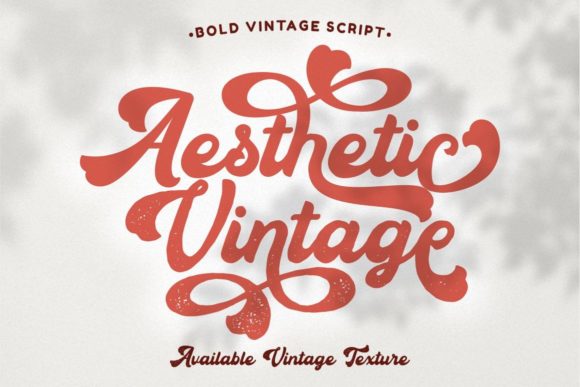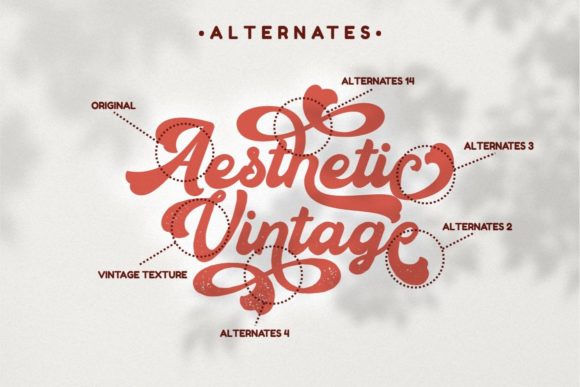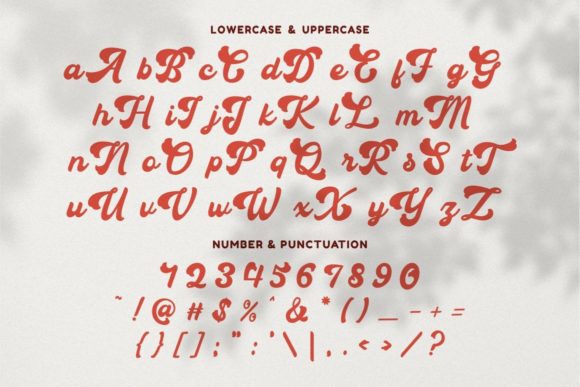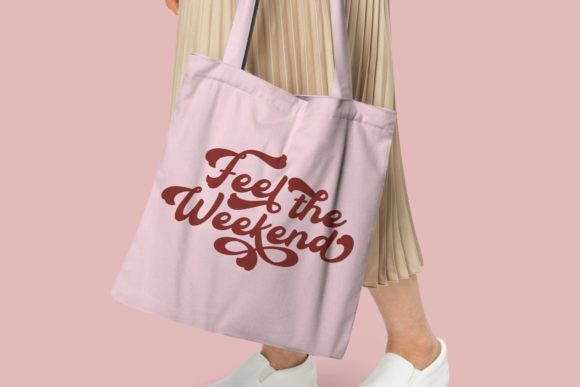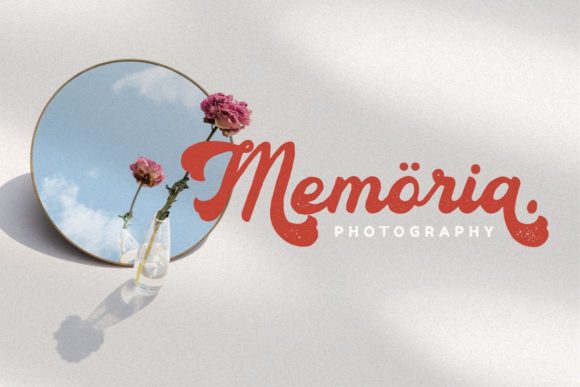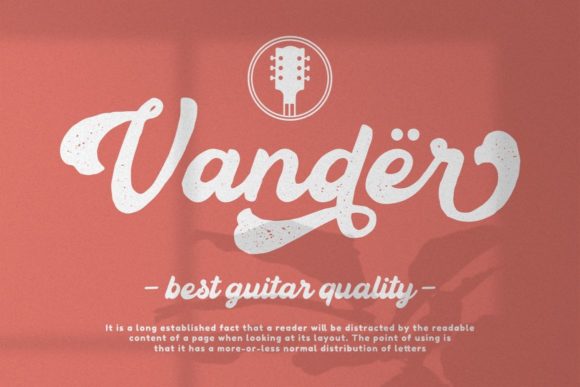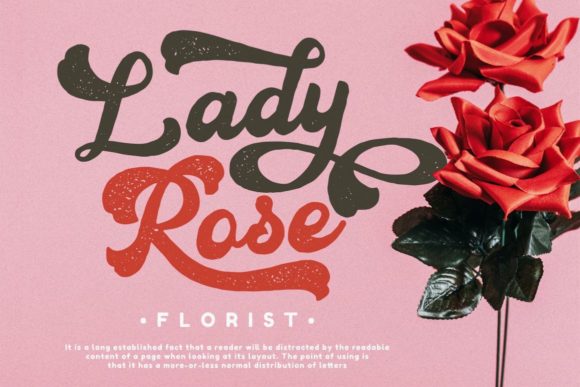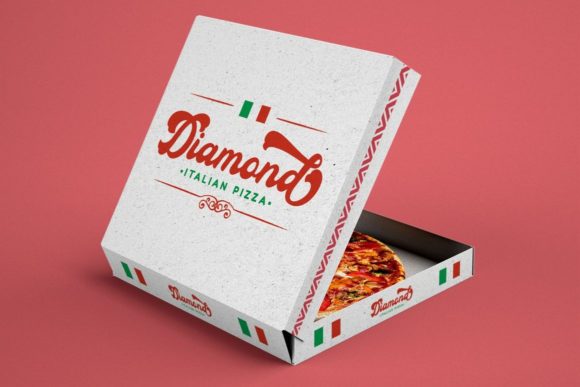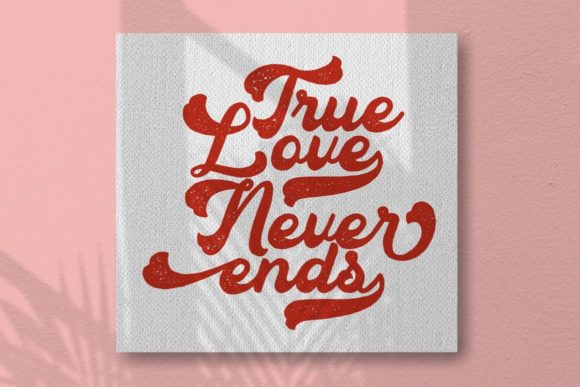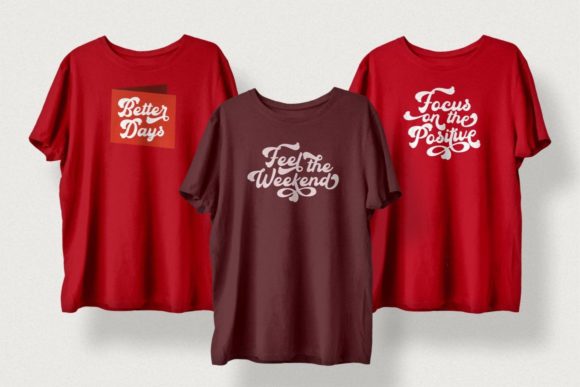
Aesthetic Vintage Font
About Aesthetic Vintage Font
Aesthetic Vintage is a bold vintage script font. You can use this font in various projects with retro/vintage and luxury themes. Such as logos, branding, posters, packaging, book covers, clothes/apparel, quotes, titles, and others. This font comes with a clean and rough font version.